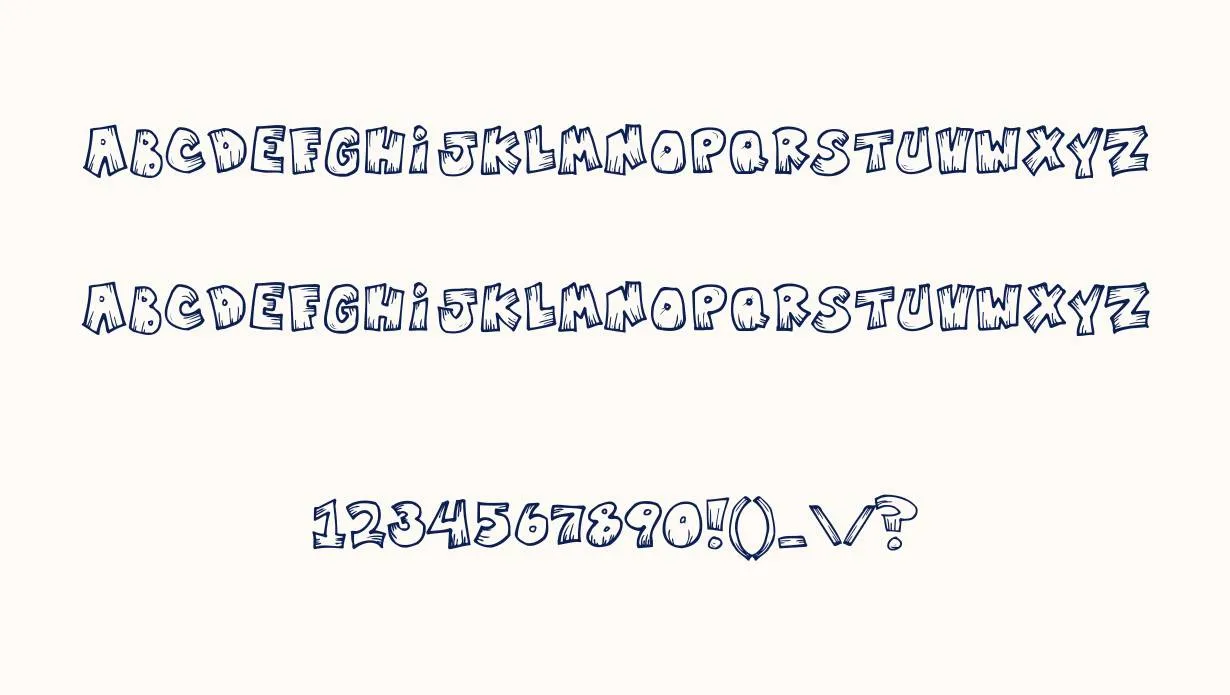
Crafted by the imaginative designer Victor Petrov, the Mister Vampire font is a unique and gothic-inspired typeface within the category of display and horror fonts. Petrov, known for his ability to evoke dark and mysterious atmospheres through typography, has designed Mister Vampire to be a captivating option for projects that demand a touch of the macabre.
This font, with its sharp edges and eerie aesthetic, is ideal for Halloween-themed designs, horror movie posters, or any creative project that seeks to embrace the darker side of visual storytelling.
| Name | Mister Vampire Font |
| Designer | Vin Rowe |